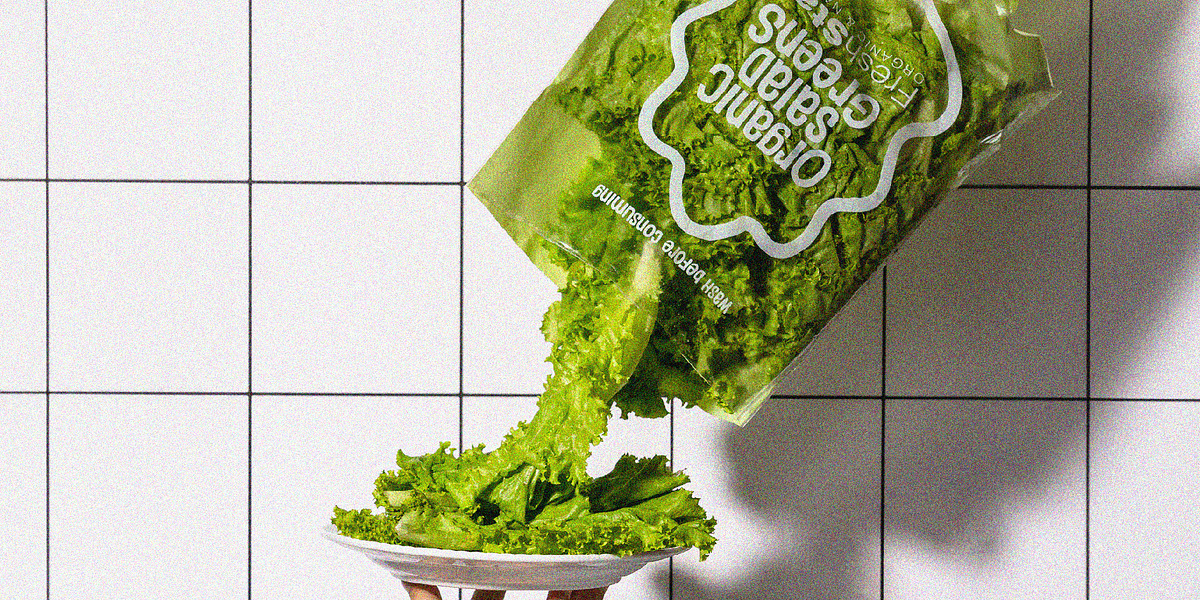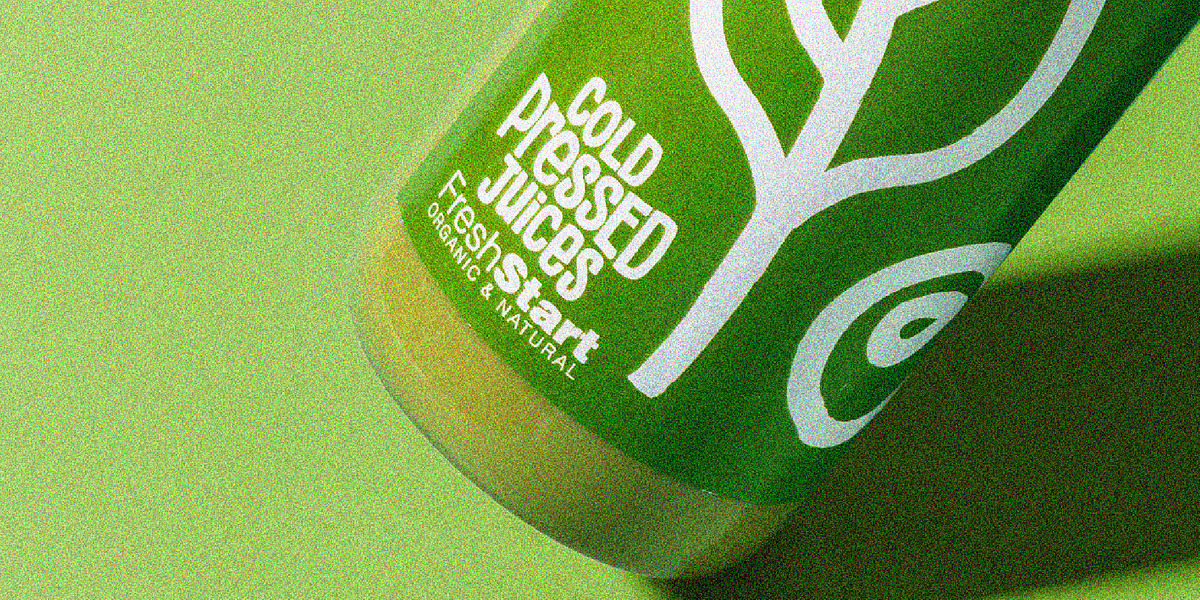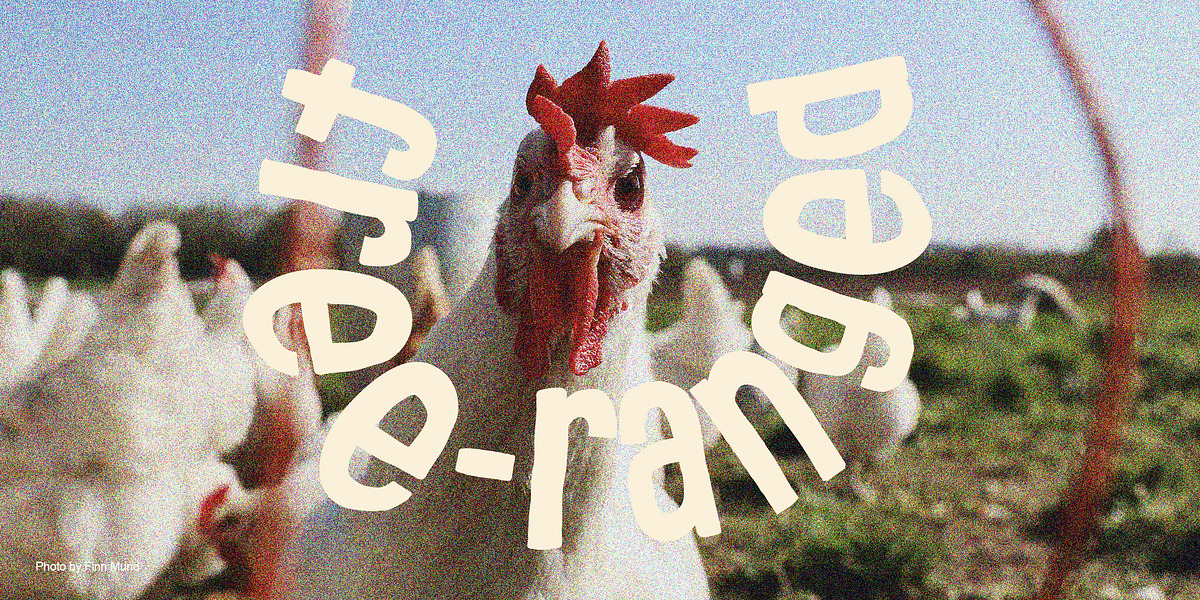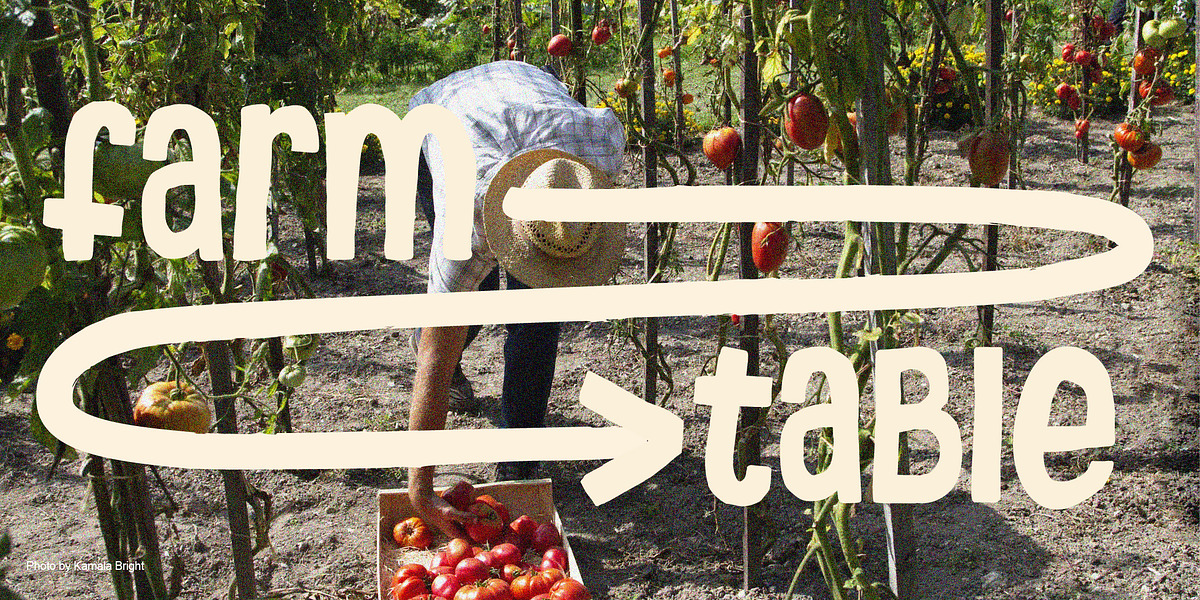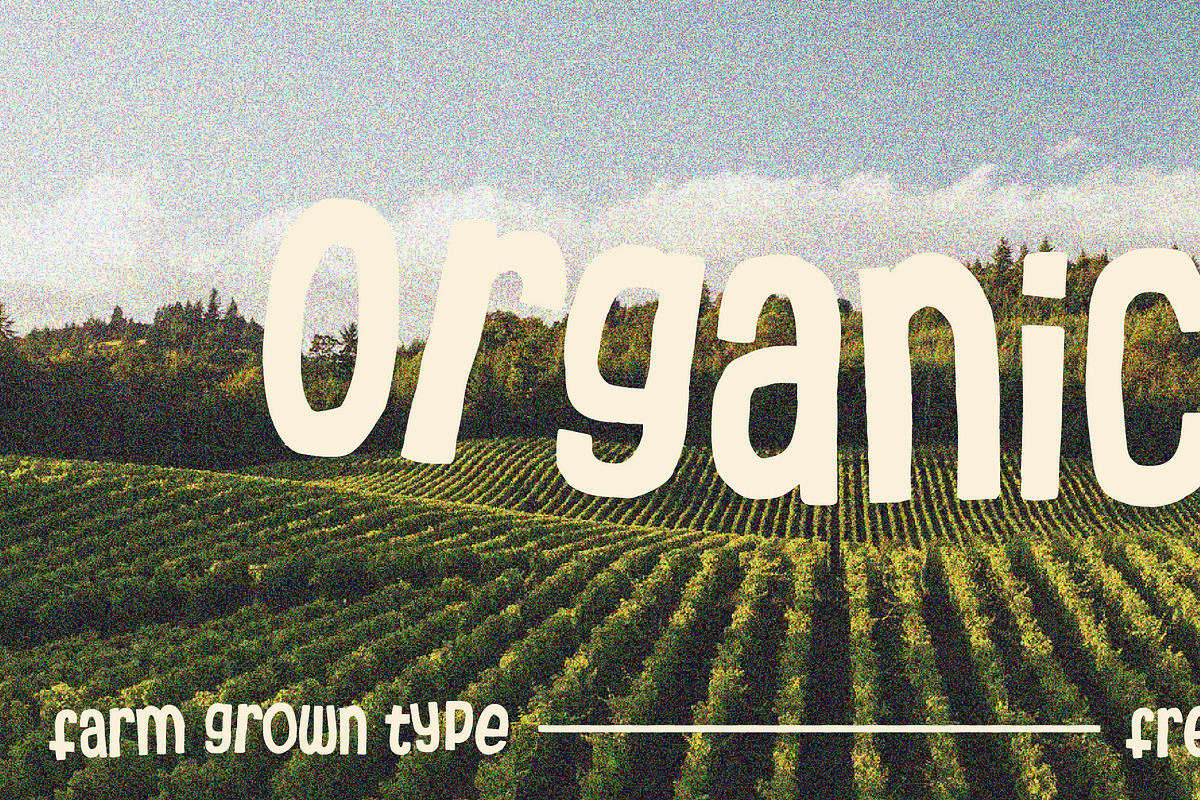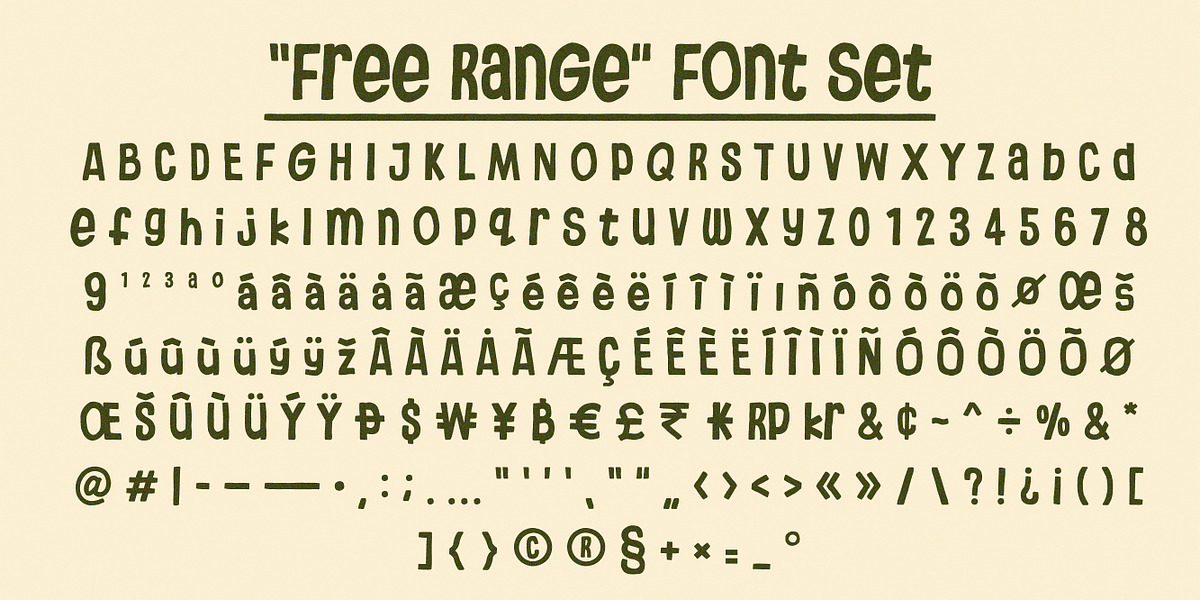
Organico
Organico is a hand-drawn script font designed to evoke a sense of nature and authenticity. Its uneven strokes and organic flow create an earthy aesthetic that would be suitable for brands focused on sustainability or natural products.